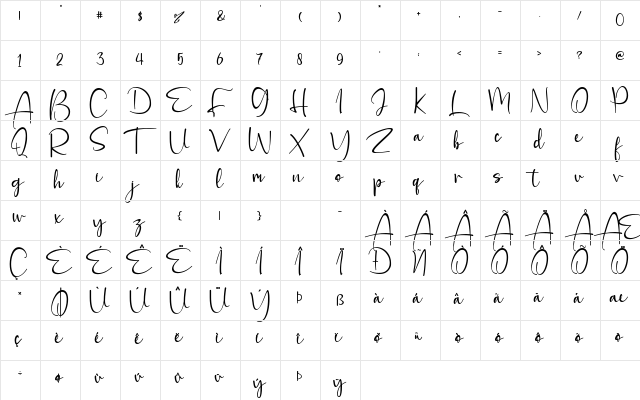
Allofera Regular
Design Context for Allofera Typeface
Allofera is a composed and adaptable typeface that performs quietly and consistently across a wide range of design contexts.